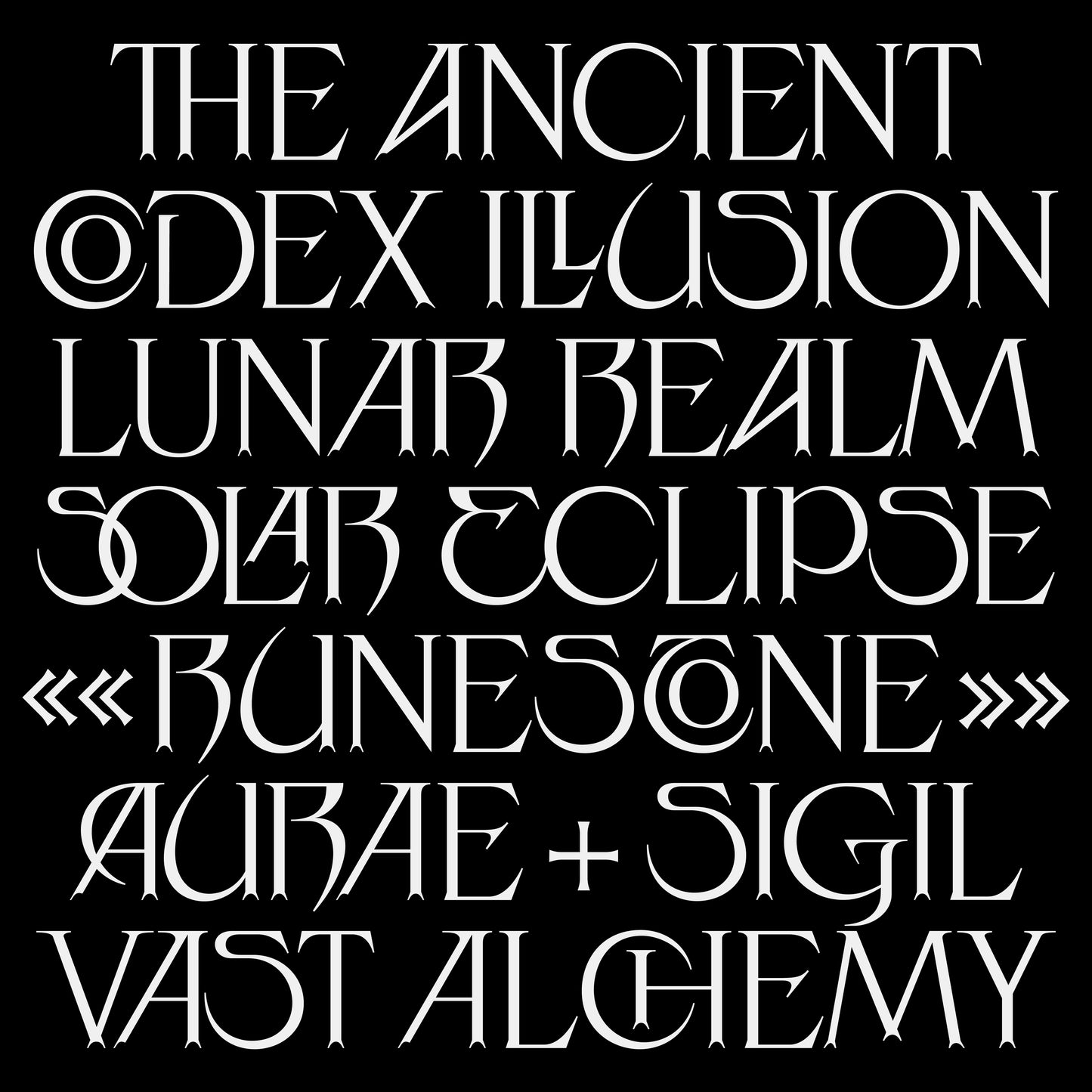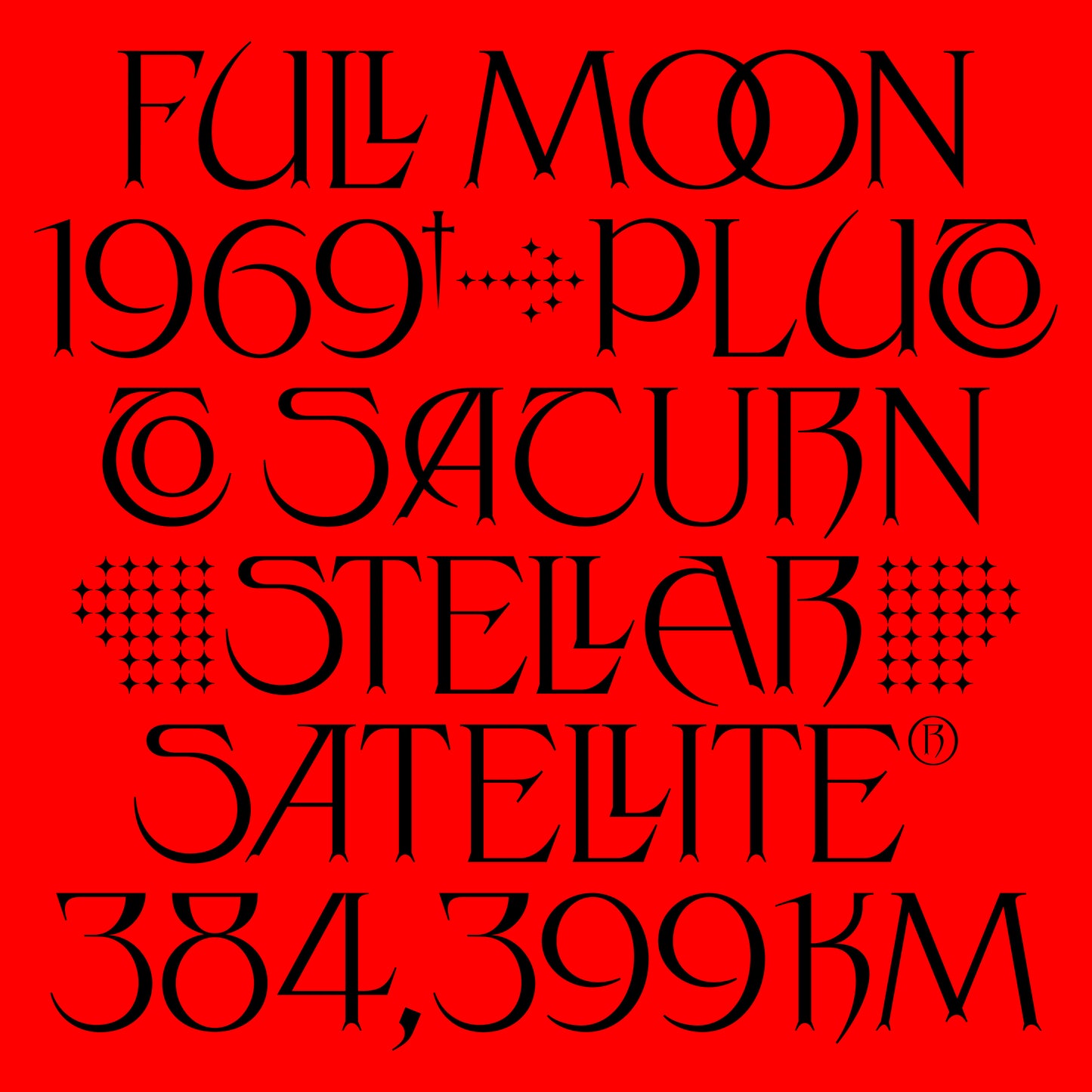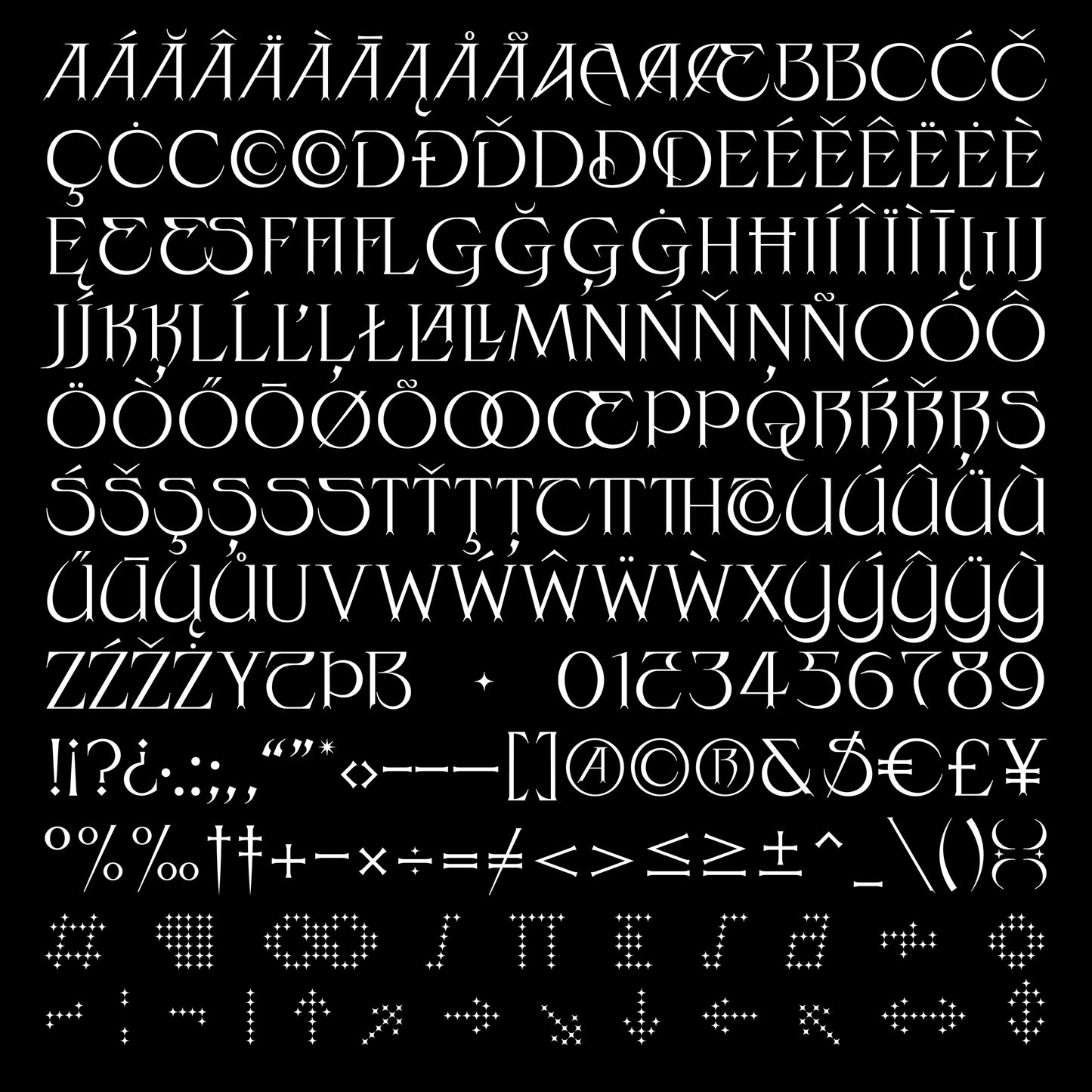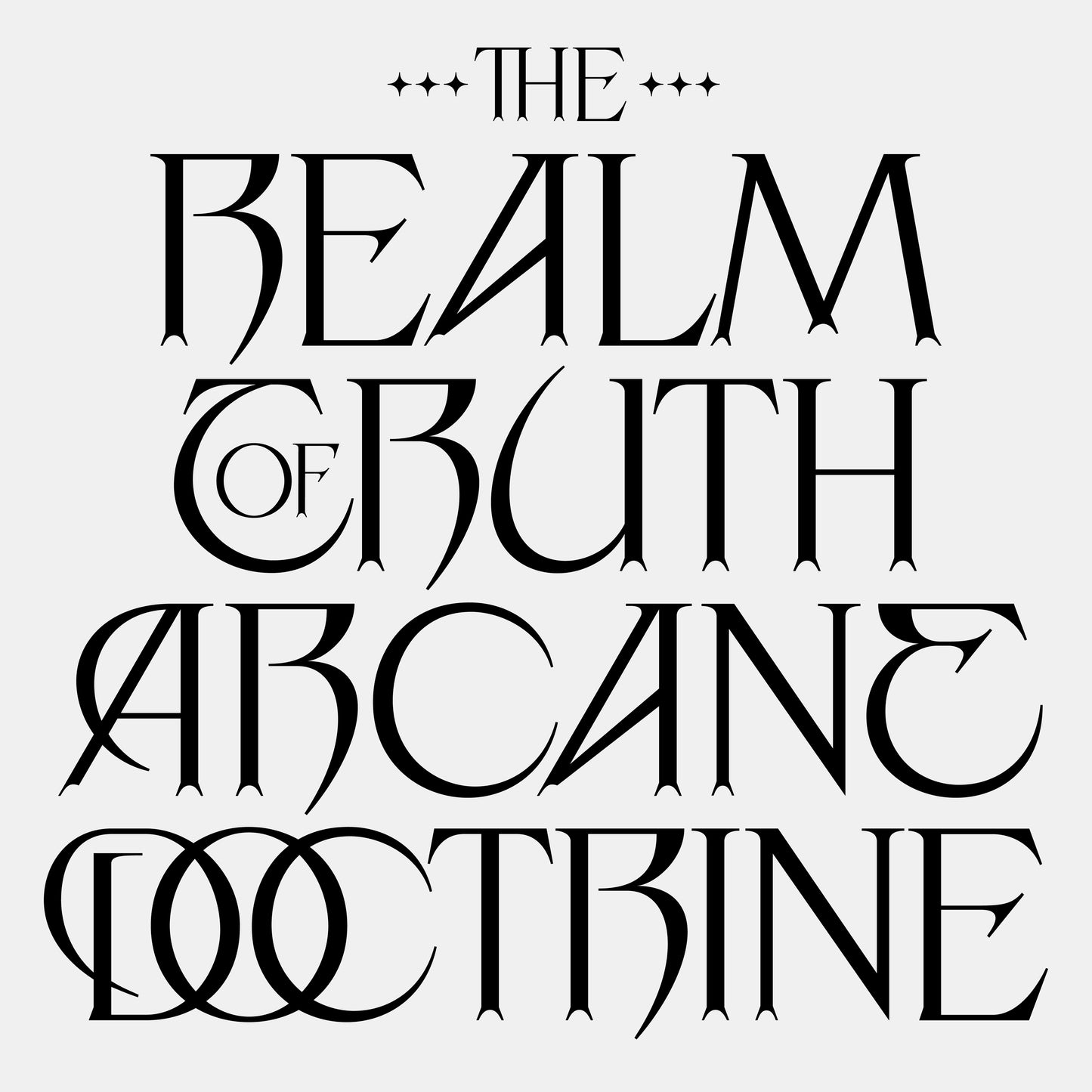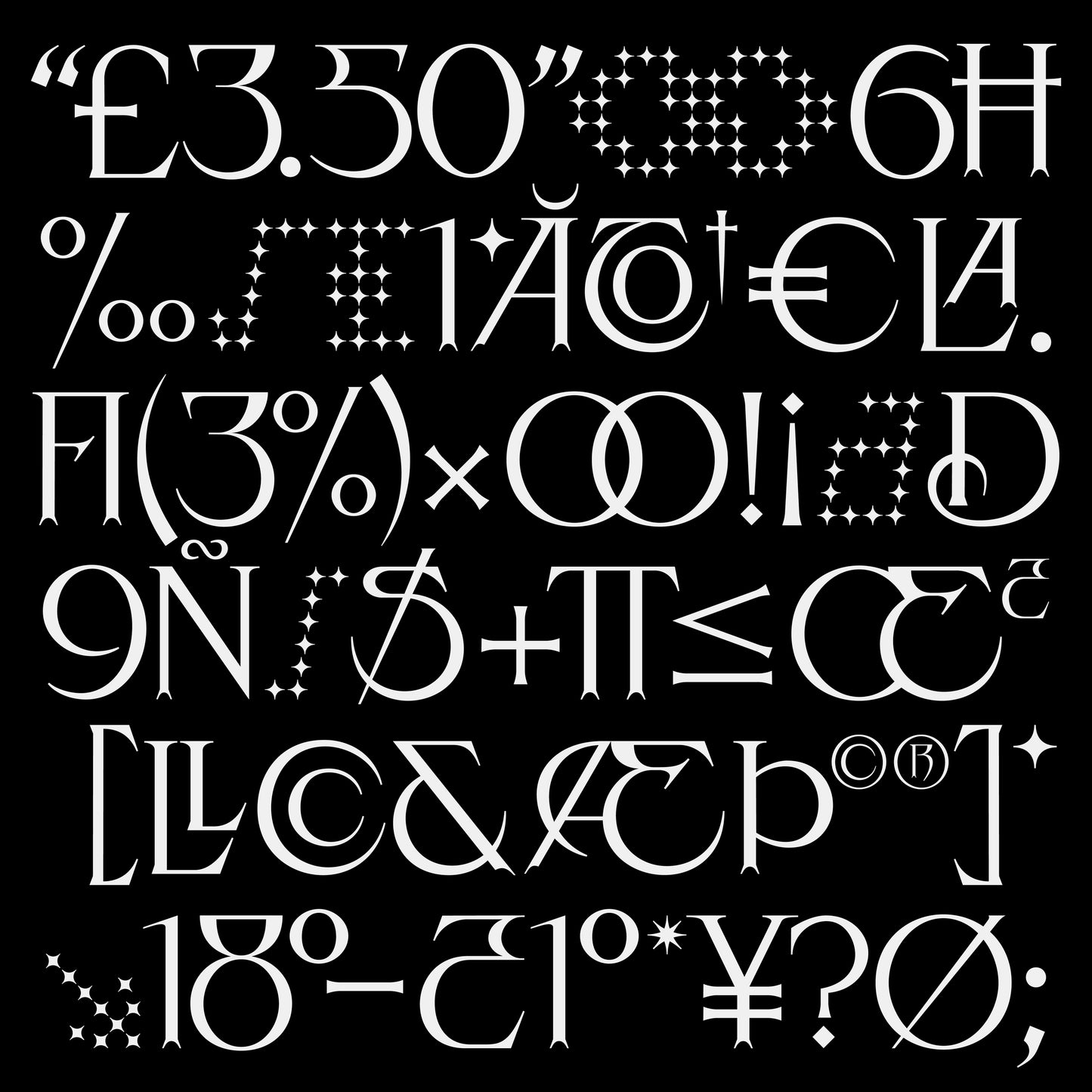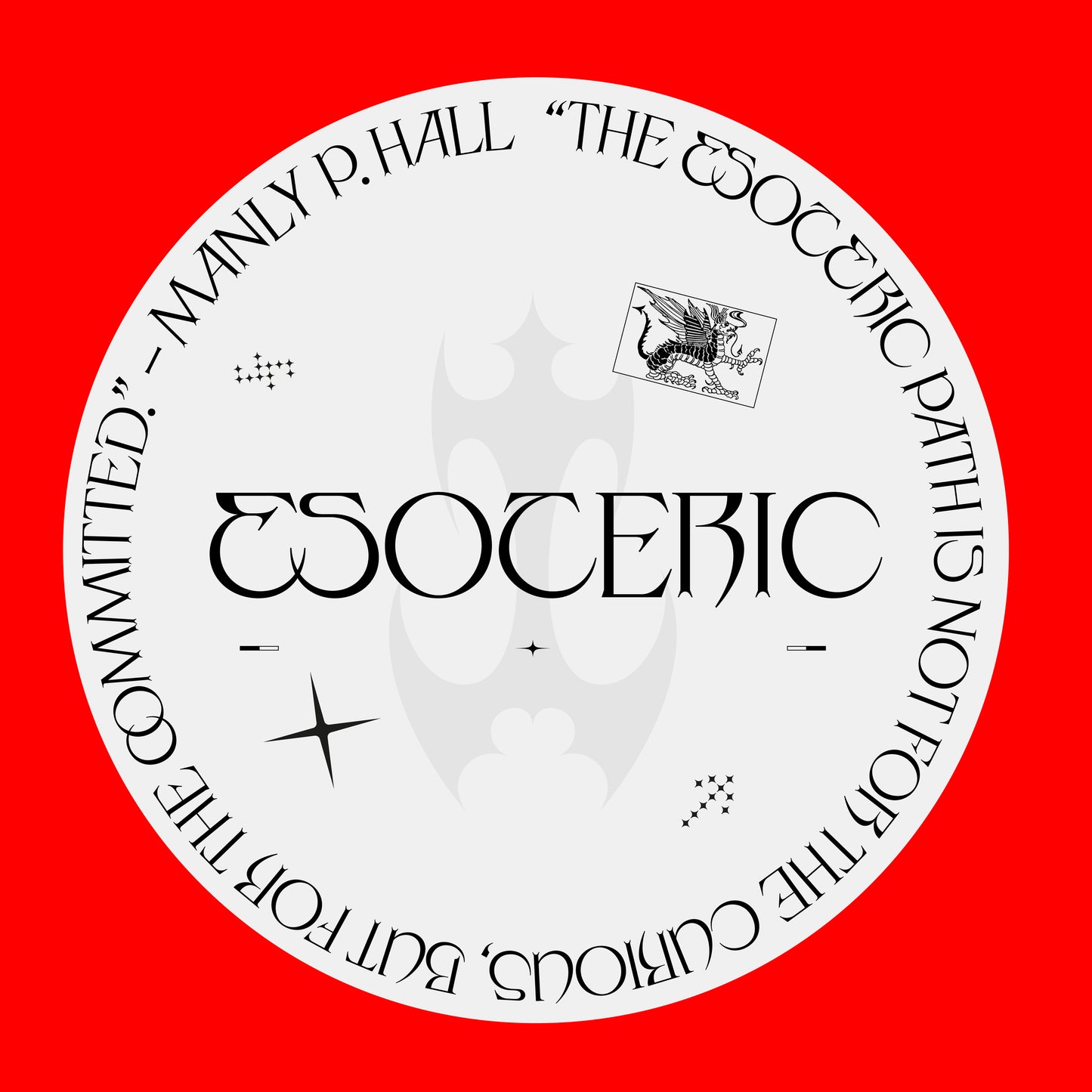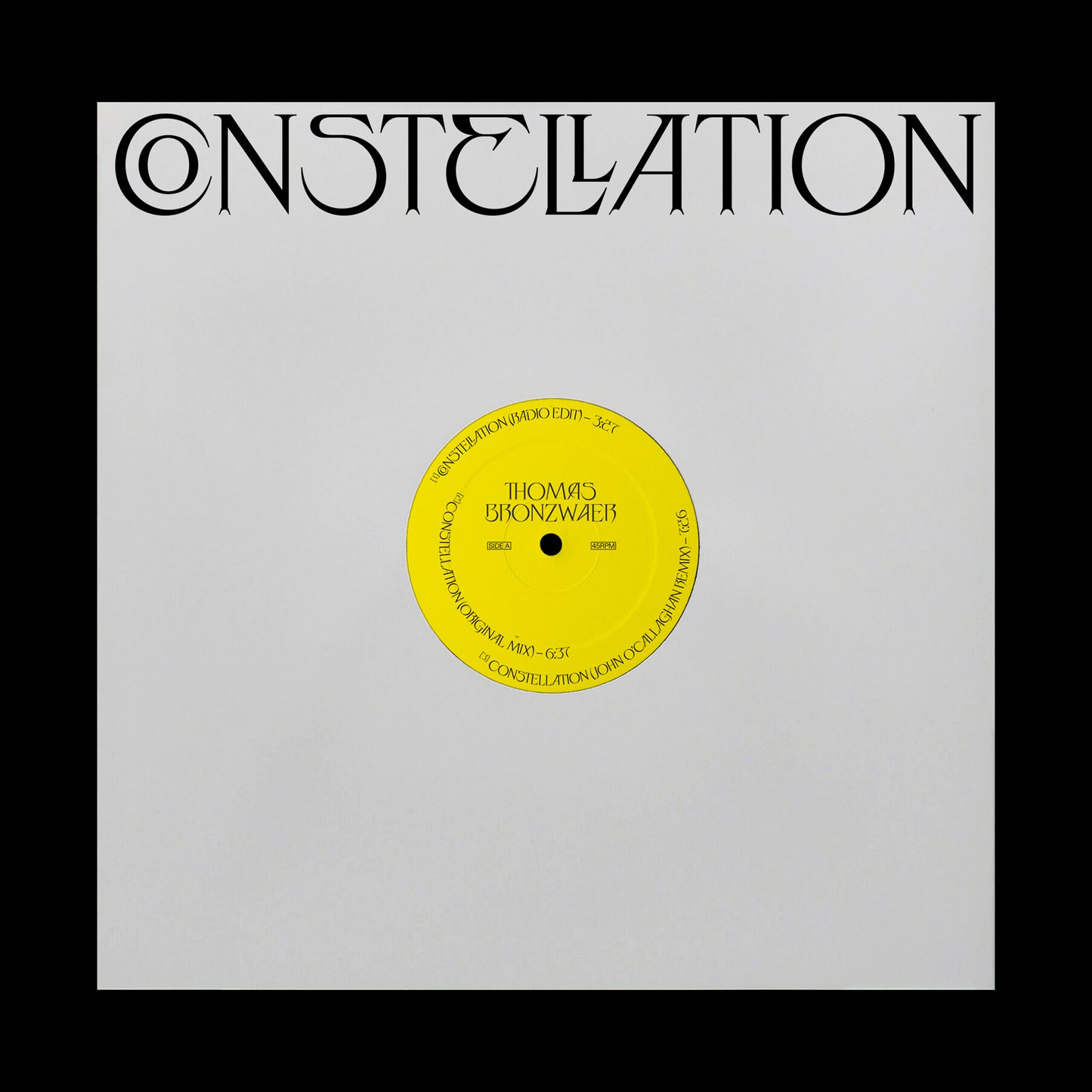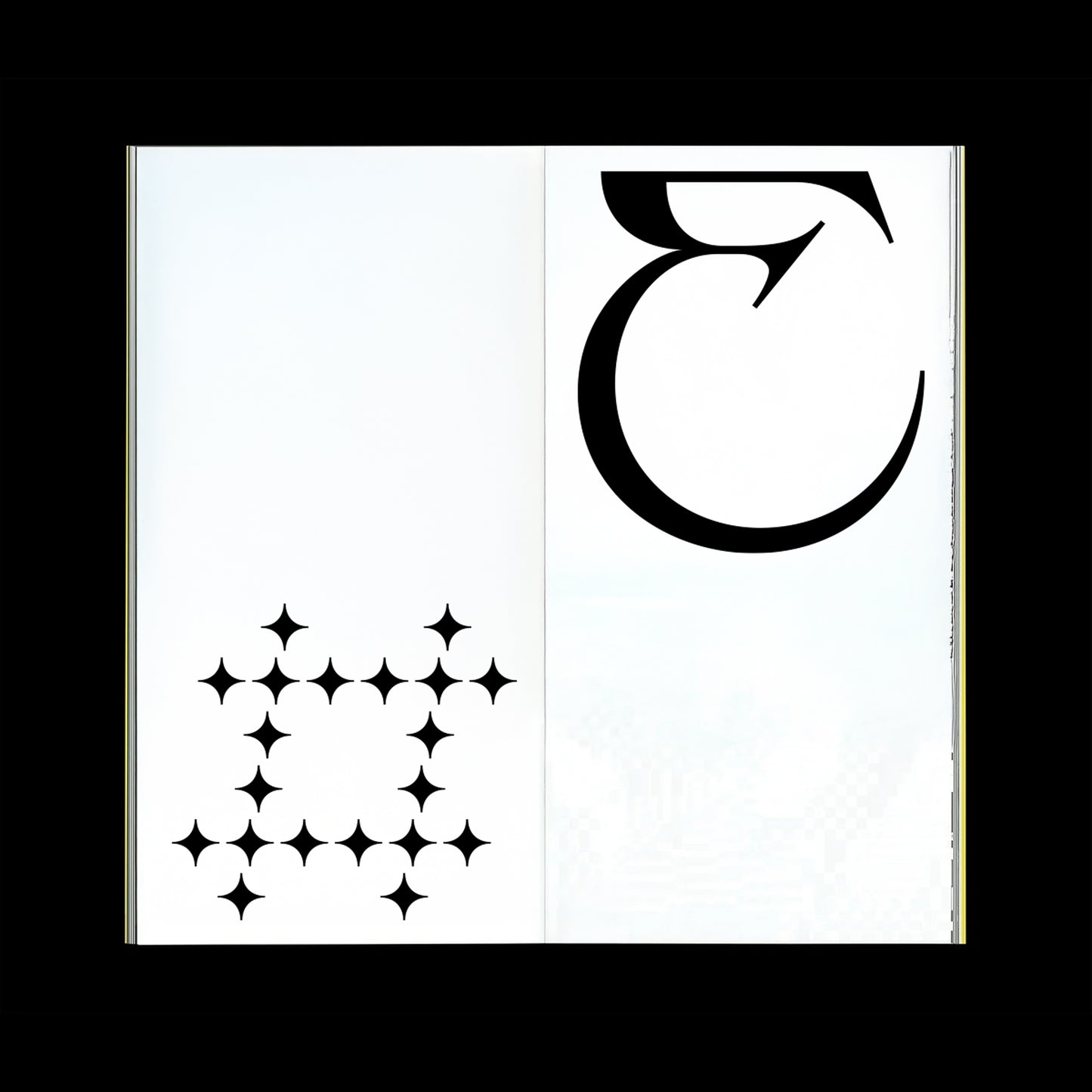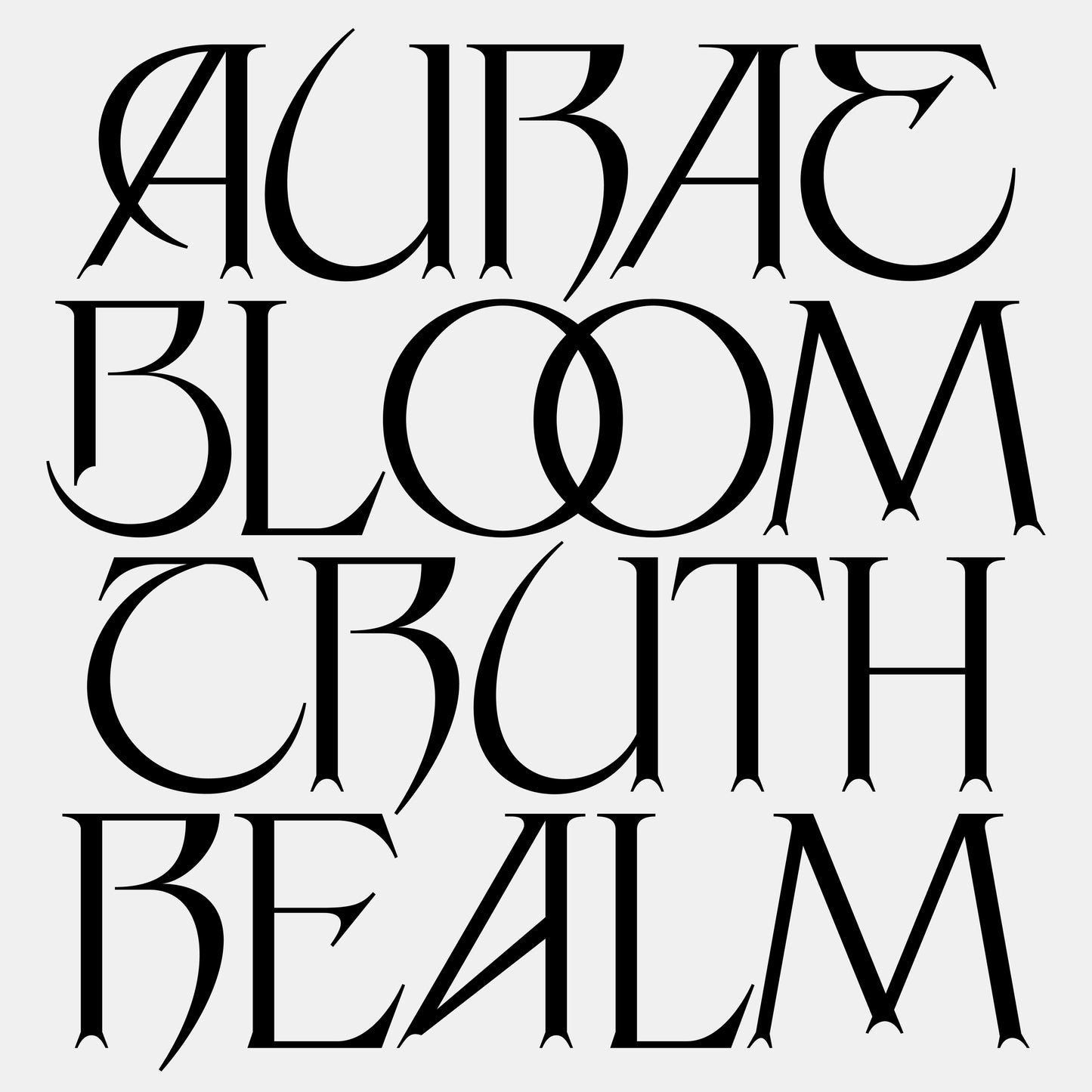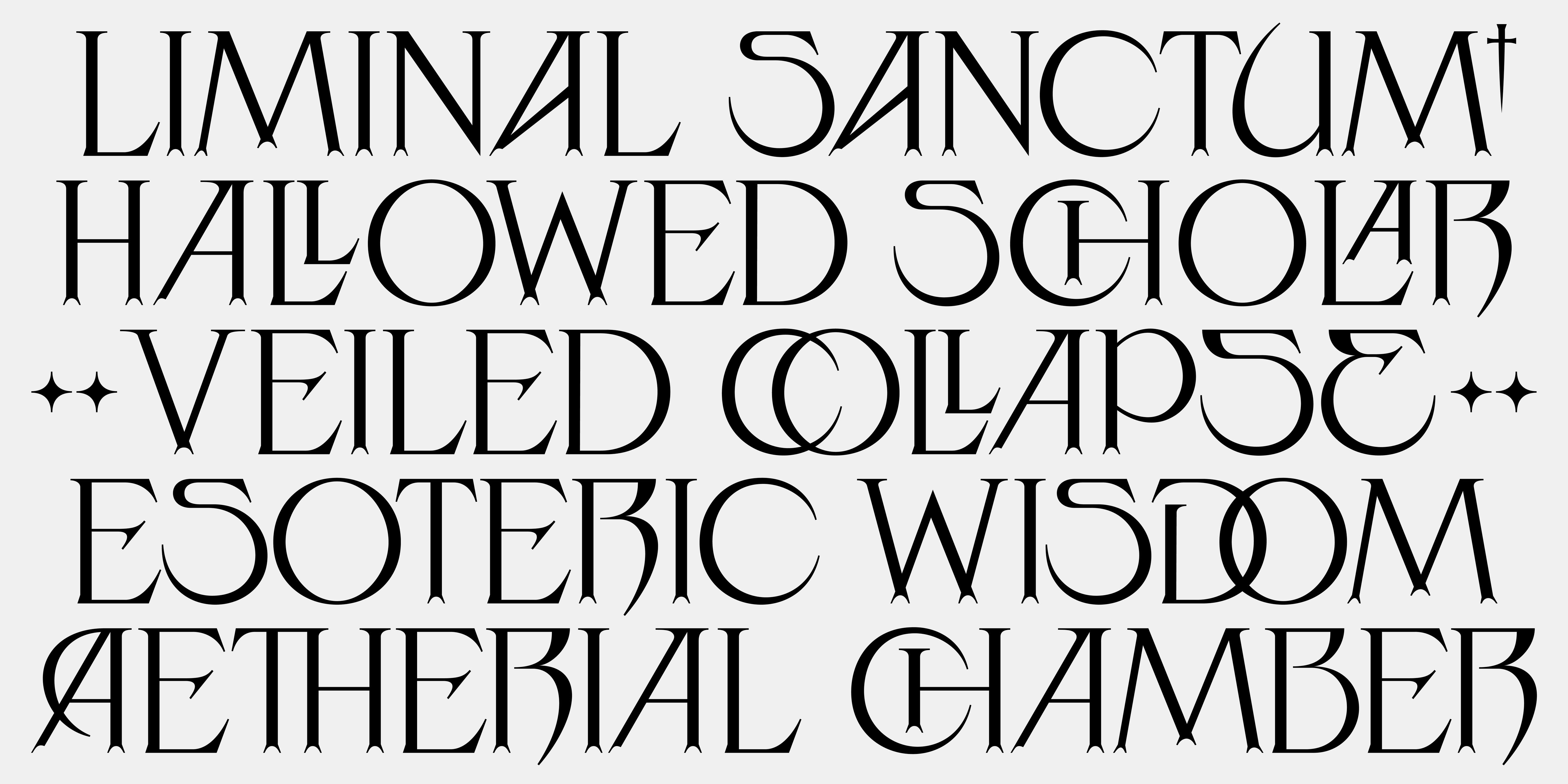
ESOTERIC
Ben King
Esoteric is an impactful display typeface created by designer and typographer Ben King. Characterised by its dramatic curves and unique serifs, this contemporary typeface draws on a plethora of influences from Illuminated manuscripts to Roman capitals. A versatile range of stylistic alternates and ligatures are included to allow the designer to create unique typographic compositions.